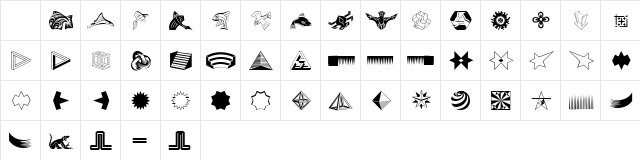
Complete P22Escher Regular glyph index. Displaying only characters natively supported by P22Escher Regular font.
P22Escher is a composed and adaptable typeface that performs quietly and consistently across a wide range of design contexts.